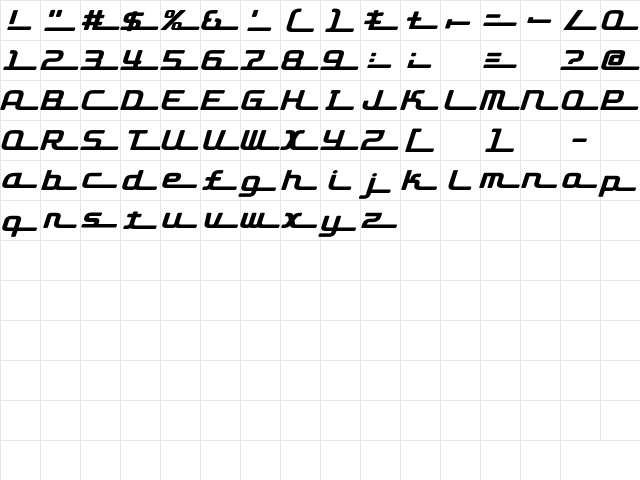
D3 Roadsterism Long Italic Regular
Design Context for D3 Roadsterism Long Italic Typeface
D3 Roadsterism Long Italic is a composed and adaptable typeface that performs quietly and consistently across a wide range of design contexts. Its italic angle brings a sense of urgency and motion to the letterforms.
Pro Tip: Use D3 Roadsterism Long Italic for emphasis, pull quotes, and subheadings where its slanted energy can add rhythm to the layout.